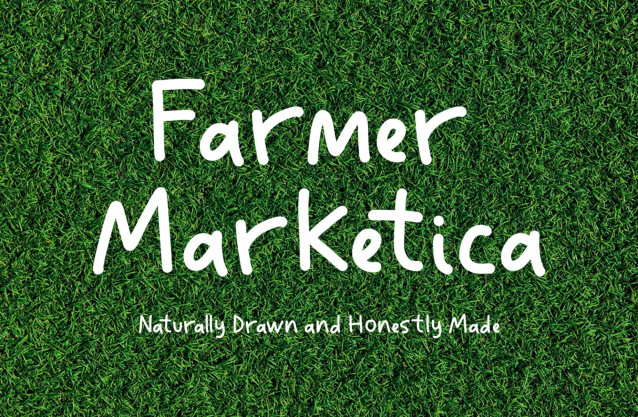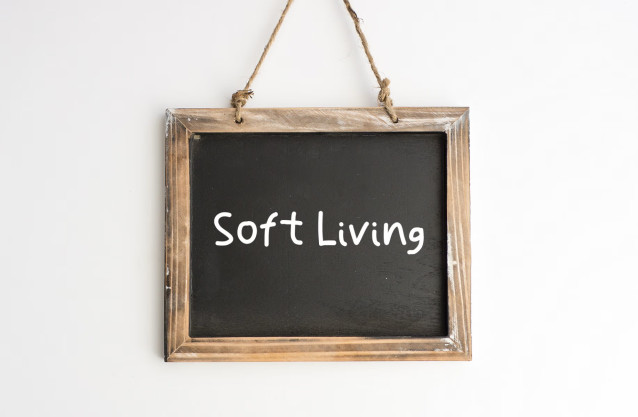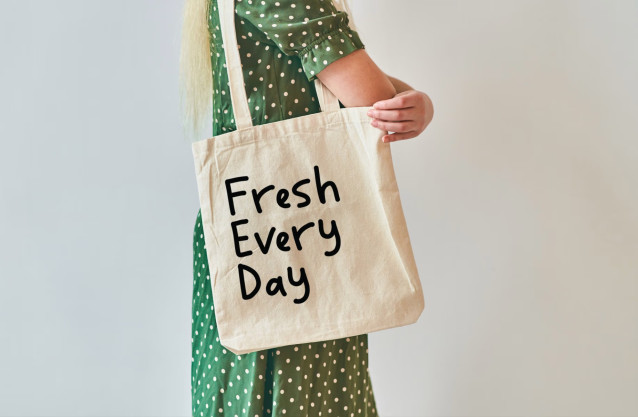
Farmer Marketica Font
Farmer Marketica Font is a hand-drawn typeface featuring organic, imperfect strokes. It is designed for use in friendly, artistic, and expressive visual designs.
This font is perfect for Social media graphics, Children’s books, playful illustrations, invitations, canva projects, Posters, flyers, cricut, logos, teachers, goodnotes, Quotes, headings, planners and more!